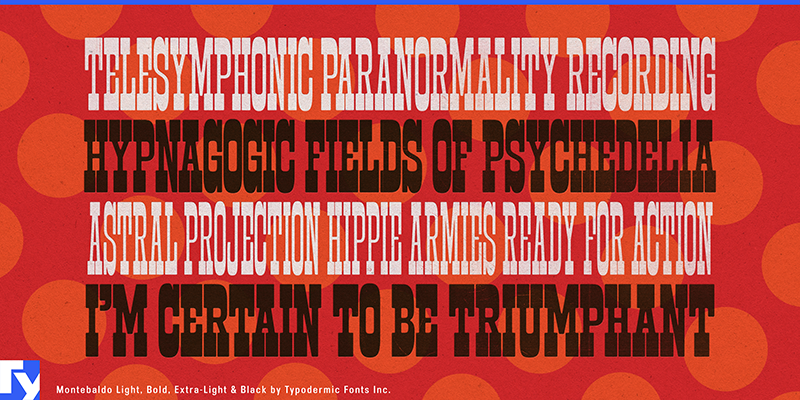
Montebaldo
Montebaldo is an inverse slab serif that channels the cinematic flair of the 1960s. Beefy serifs, ultra-tight spacing, and condensed proportions echo the look of vintage photo-typesetting and dry-transfer lettering, bringing a touch of analog drama to modern layouts. Its bold shapes and softened corners keep headlines crisp and expressive, making it ideal for film titles, retro posters, branding, and other display work that calls for glamour with a hint of nostalgia. This font includes a license that allows free commercial use: sometimes referred to as a desktop license. This allows you to install the font on a computer and use it to create posters, web graphics, game graphics, t-shirts, videos, signs, logos and more. Read the license agreement for details. If you'd like to embed this font in an app, on the web or anything that's not covered by the desktop license agreement, visit the link below. You'll find distributors who offer different types of licenses, or you can contact me for help. https://typodermicfonts.com/montebaldo/ This free font is part of a larger font family. Check out the rest of the family through the link above.